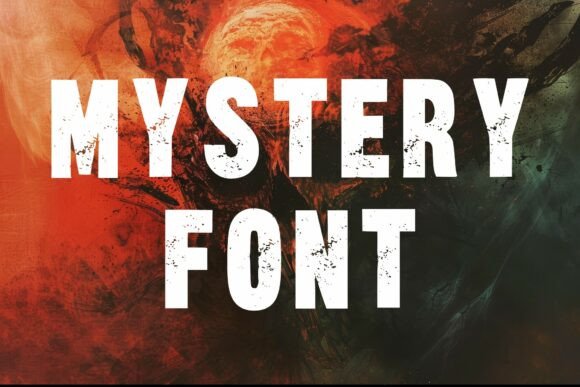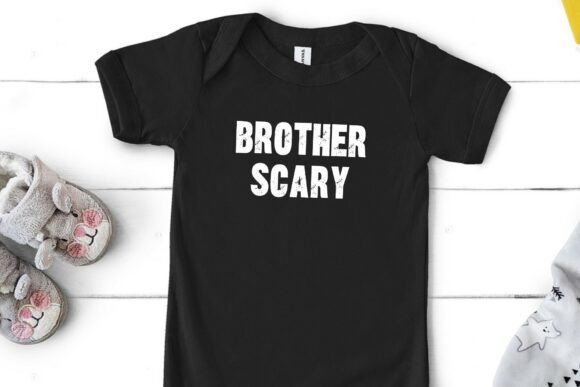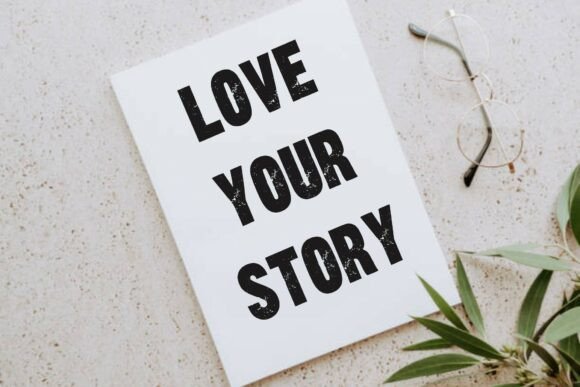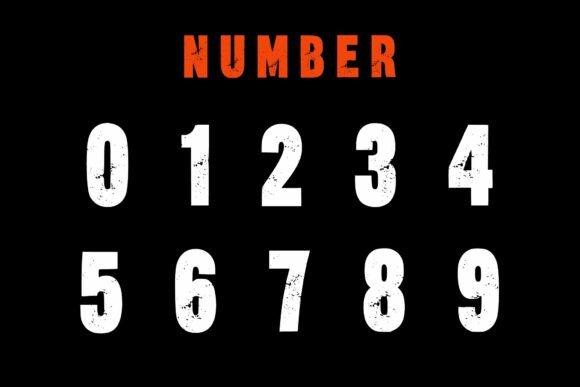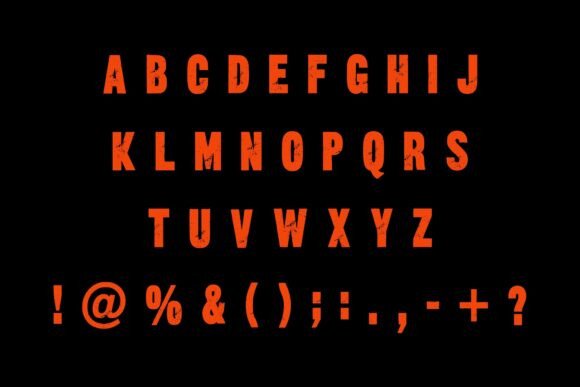
Grunge Project Font: Unleash the Raw Energy of Urban Rebellion in Your Designs
Are you tired of using the same old fonts in your designs? Do you want to add a touch of authenticity and grit to your posters, album covers, streetwear branding, movie titles, and graphic design projects? Look no further than the Grunge Project font, a bold and distressed typeface that captures the raw energy of urban rebellion and underground design.
What is Grunge Project Font?
Grunge Project is a unique font that embodies the spirit of grunge culture, featuring rough textures, imperfect edges, and a fearless attitude that instantly demands attention. This font is perfect for designers and crafters who want to add a punch of realism to their projects and make them stand out from the crowd.
Key Features of Grunge Project Font
- Bold and Distressed Design: Grunge Project font features a bold and distressed design that is perfect for creating eye-catching posters, album covers, and streetwear branding.
- Rough Textures and Imperfect Edges: The font’s rough textures and imperfect edges give it a genuine, handcrafted feel that adds a touch of authenticity to any design.
- Fearless Attitude: Grunge Project font has a fearless attitude that instantly demands attention and makes your designs stand out.
- Strong, Loud, and Unapologetically Imperfect: This font is strong, loud, and unapologetically imperfect, making it perfect for designers who want to add a touch of rebellion to their designs.
Use Cases for Grunge Project Font
Grunge Project font is perfect for a variety of design projects, including:
- Posters: Create eye-catching posters for concerts, festivals, or events with Grunge Project font.
- Album Covers: Add a touch of authenticity to your album covers with this bold and distressed font.
- Streetwear Branding: Use Grunge Project font to create bold and edgy streetwear branding that stands out.
- Movie Titles: Add a touch of grit and realism to your movie titles with this unique font.
- Graphic Design: Use Grunge Project font to add a punch of realism to your graphic design projects, such as brochures, flyers, or business cards.
Benefits of Using Grunge Project Font
Using Grunge Project font in your designs offers a range of benefits, including:
- Instant Attention: The font’s bold and distressed design instantly demands attention and makes your designs stand out.
- Authentic Look and Feel: Grunge Project font adds a genuine, handcrafted feel to your designs, giving them an authentic look and feel.
- Versatility: This font is versatile and can be used in a variety of design projects, from posters to graphic design.
- Unique Style: Grunge Project font offers a unique style that sets it apart from other fonts, making your designs instantly recognizable.
Tips for Using Grunge Project Font
Here are some tips for using Grunge Project font in your designs:
- Use it Boldly: Grunge Project font is designed to be used boldly, so don’t be afraid to experiment with different sizes and styles.
- Pair it with Other Fonts: Pair Grunge Project font with other fonts to create a unique and interesting contrast.
- Experiment with Colors: Experiment with different colors to find the perfect combination that works with your design.
- Keep it Simple: Keep your design simple and clean to let the font take center stage.
Grunge Project font is a bold and distressed typeface that captures the raw energy of urban rebellion and underground design. With its rough textures, imperfect edges, and fearless attitude, this font is perfect for designers and crafters who want to add a touch of authenticity and grit to their designs. Whether you’re designing posters, album covers, streetwear branding, movie titles, or graphic design projects, Grunge Project font is the perfect choice. So why wait? Unleash your creativity with Grunge Project font and take your designs to the next level.